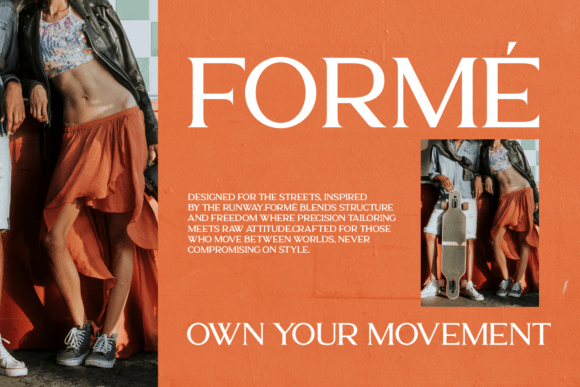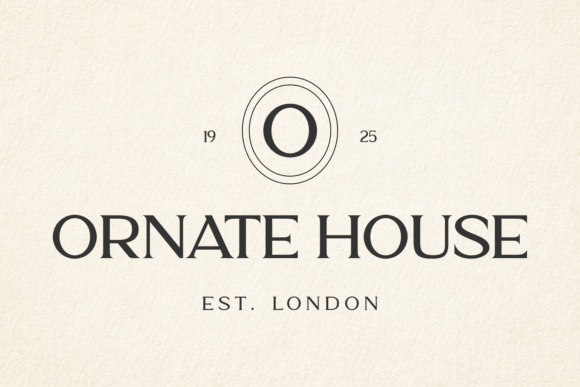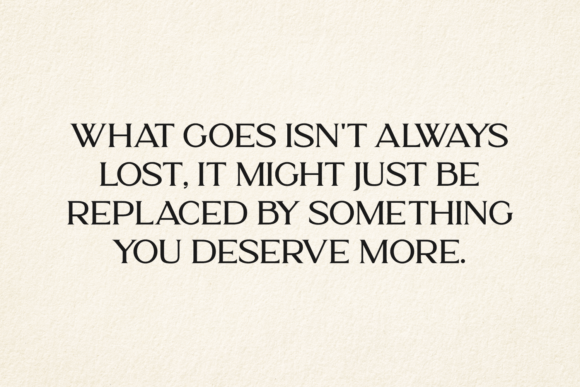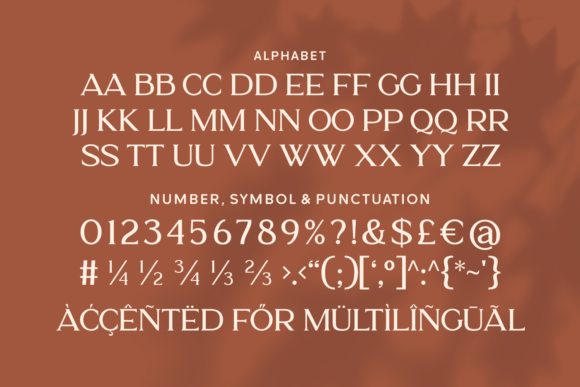
Introduction to Cheora Font
As a designer, have you ever found yourself staring at a blank canvas, trying to bring your creative vision to life? The perfect font can be the missing piece that takes your project from ordinary to extraordinary. That’s where Cheora Font comes in – a sophisticated modern serif typeface that’s poised to elevate your design game.
With its refined balance of classic elegance and contemporary minimalism, Cheora Font is a design resource that’s hard to resist. Its unique character shapes and subtle alternates give it a distinctive edge, making it ideal for branding, logo design, and upscale packaging. Whether you’re working on a high-end fashion campaign or a professional portfolio, Cheora Font adds a touch of high-quality sophistication to any layout.
And the best part? Cheora Font is a versatile and stylish choice that can be used on a transparent background, giving you the freedom to create a wide range of design elements – from website headers to digital media. So why settle for an ordinary font when you can have a high-end design resource like Cheora Font?
Key Features of Cheora Font
- High-quality design for creative projects, offering a unique and stylish look.
- Features a modern and elegant design, perfect for use in logos, headings, and body text in creative projects.
Honest Review: Cheora Font
I recently had the chance to work with the Cheora Font on a creative project, and I must say I’m quite impressed. The font is a high-quality design resource that can elevate any visual content. What works well is its unique, elegant design that can add a touch of sophistication to your work. ✨
Here are some of the key features I liked about the Cheora Font:
- Unique and elegant design that can add sophistication to your work
However, there are some limitations to consider: ⚠️
- Some users may find the font too bold or overpowering
- The font may not be suitable for all types of design projects
Overall, I think the Cheora Font is a great design resource that can add a lot of value to your creative projects. While it may have some limitations, its unique design and high-quality make it a worthwhile investment for any designer.
The Cheora Font is ideal for a variety of creative projects, including business cards, brochures, and social media graphics. Its high-quality features and transparent background make it perfect for creating visually appealing designs that will grab the attention of your audience.